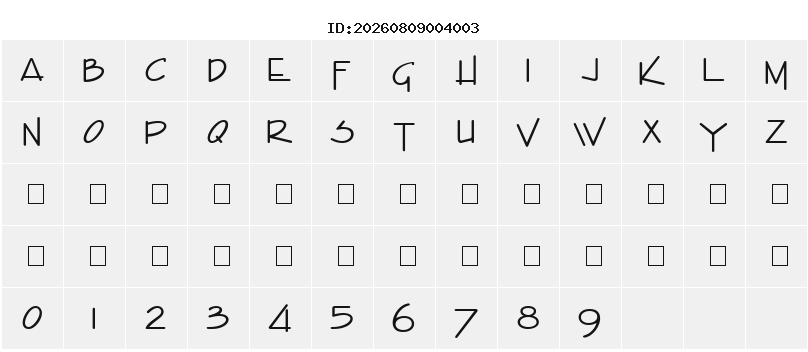
Pinzon Preview
• Font Name: Pinzon
• Full Font Name: Pinzon
• PostScript Name: Pinzon
• Character Count: 95
About Pinzon.ttf
Pinzon.ttf is a modern, elegant sans-serif font designed for ultimate readability and visual harmony. Perfect for branding, headlines, web design, and print materials.